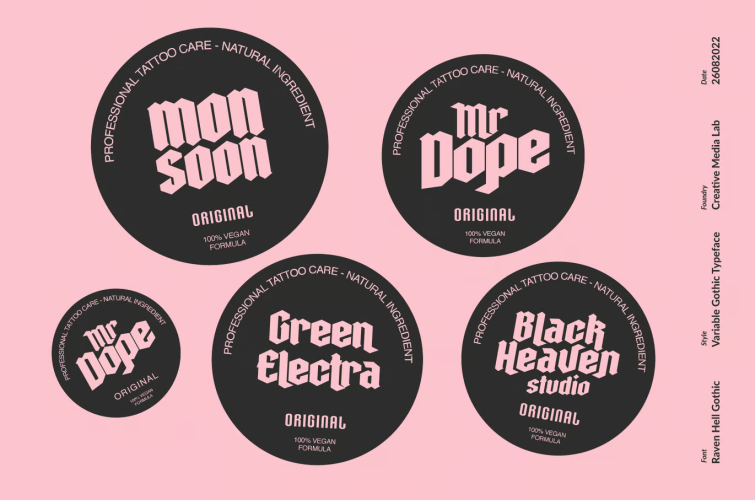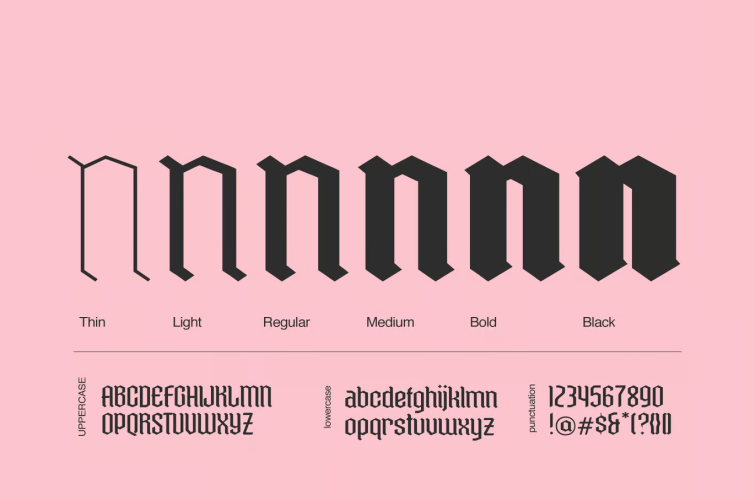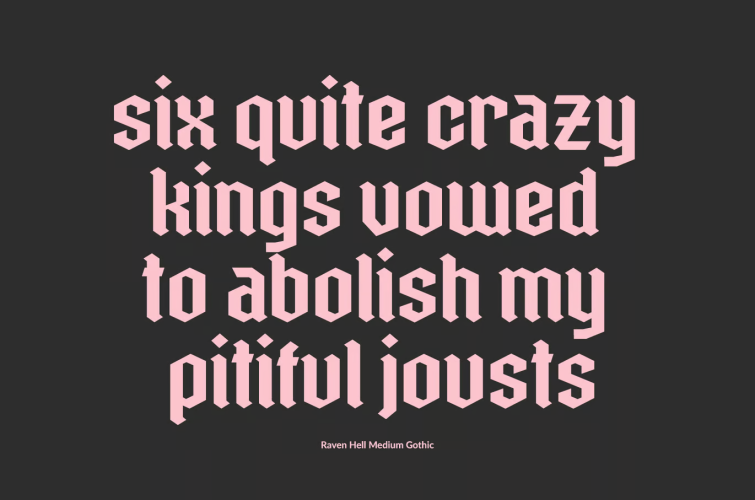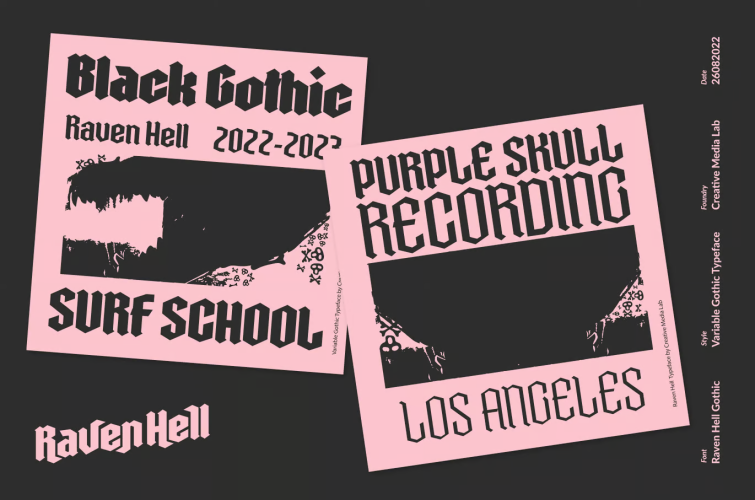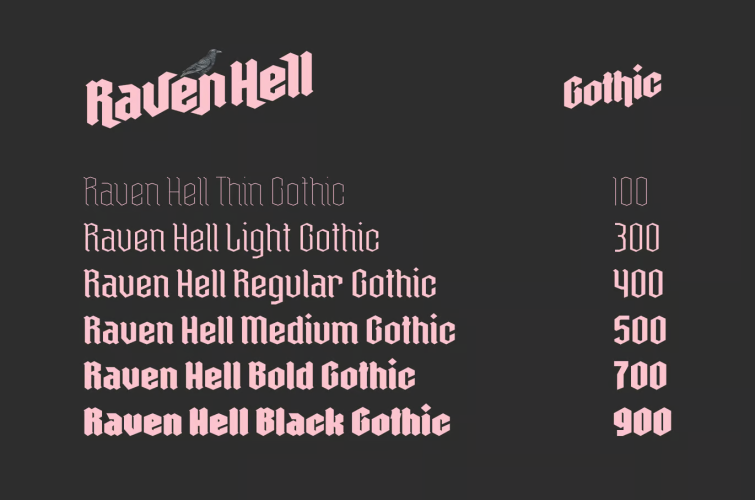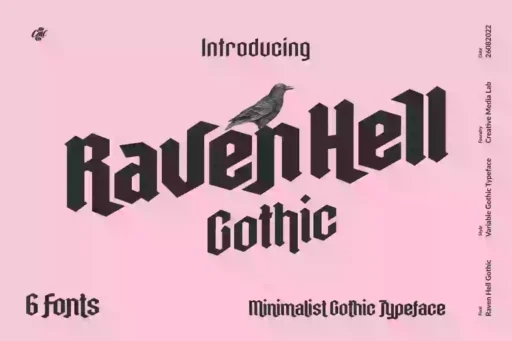
Raven Hell Font
Raven Hell is a simple and modern gothic font. It blends blackletter and sans-serif styles, making it perfect for tattoos, labels, logos, posters, and more.
This font works for bold, edgy designs or sleek, minimalist themes. Use it to create badges, branding, and product packaging with a strong and unique look.
Features:
Modern gothic style (Sans & Blackletter)
Perfect for tattoos, logos, and posters
Versatile and stylish
Raven Hell Font is a Display Fonts font that brings a professional and versatile look to your projects. Raven Hell is a simple and modern gothic font.